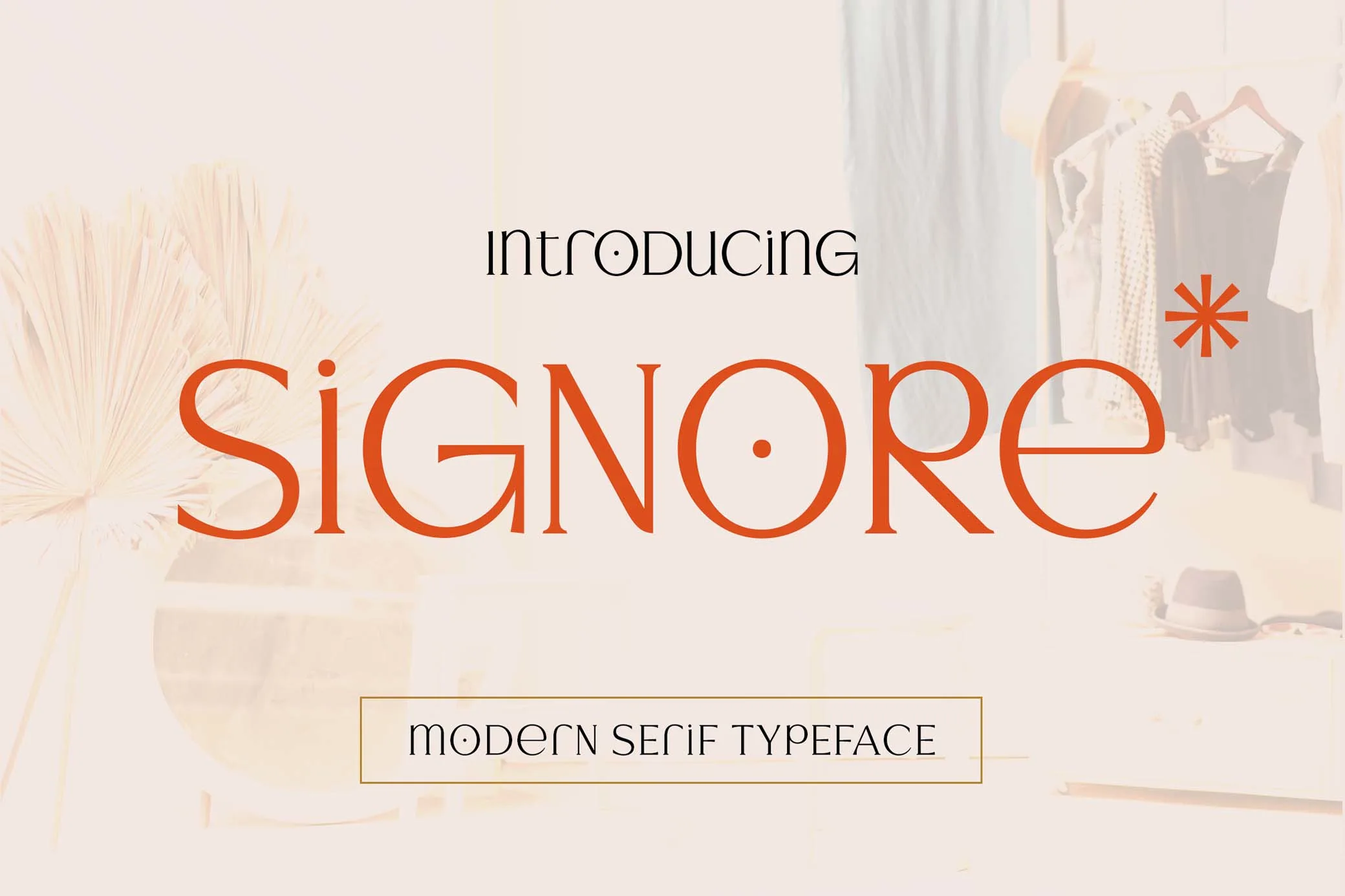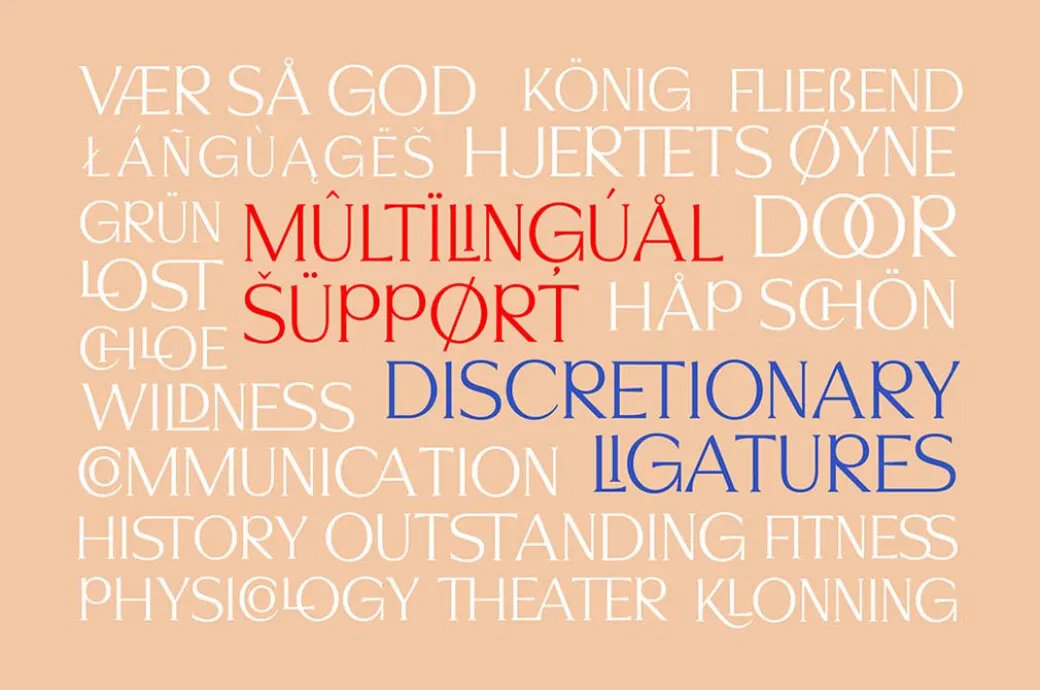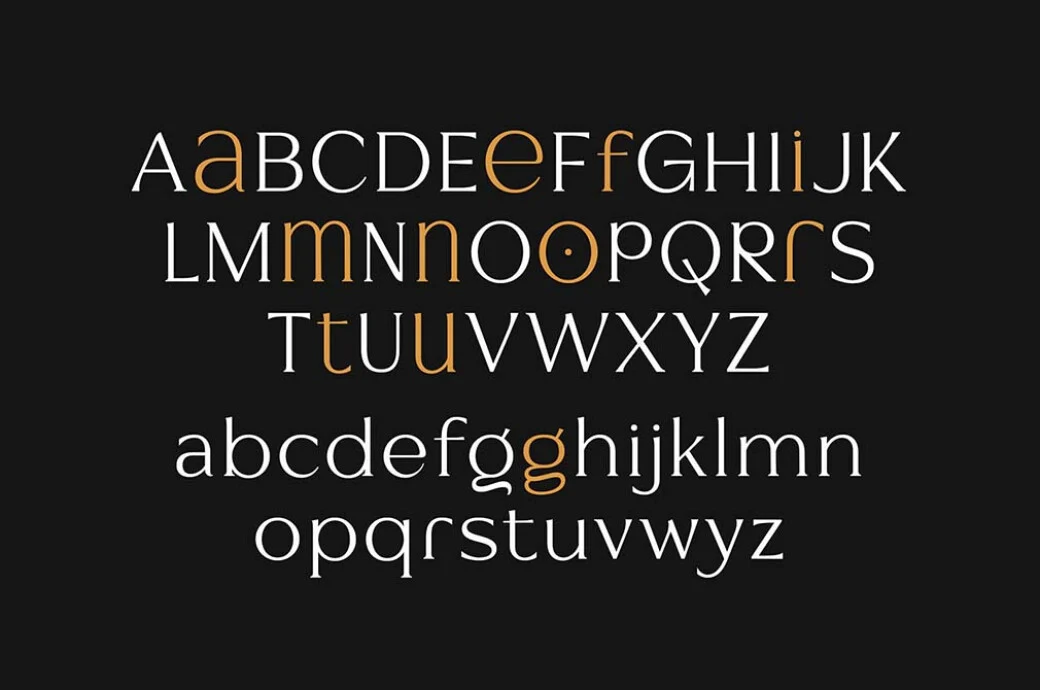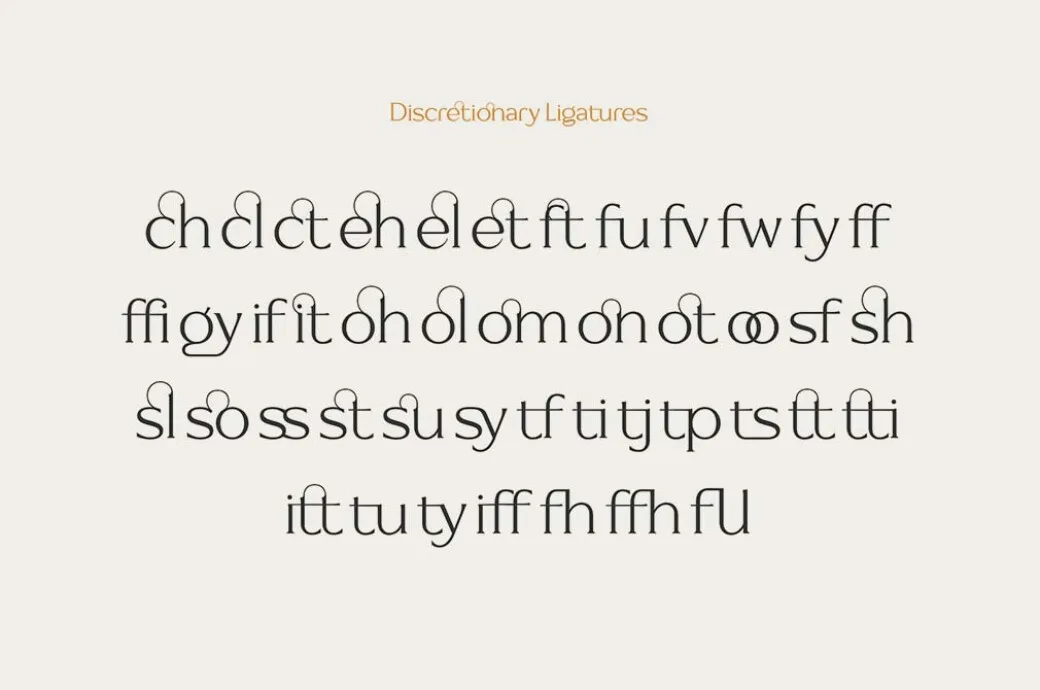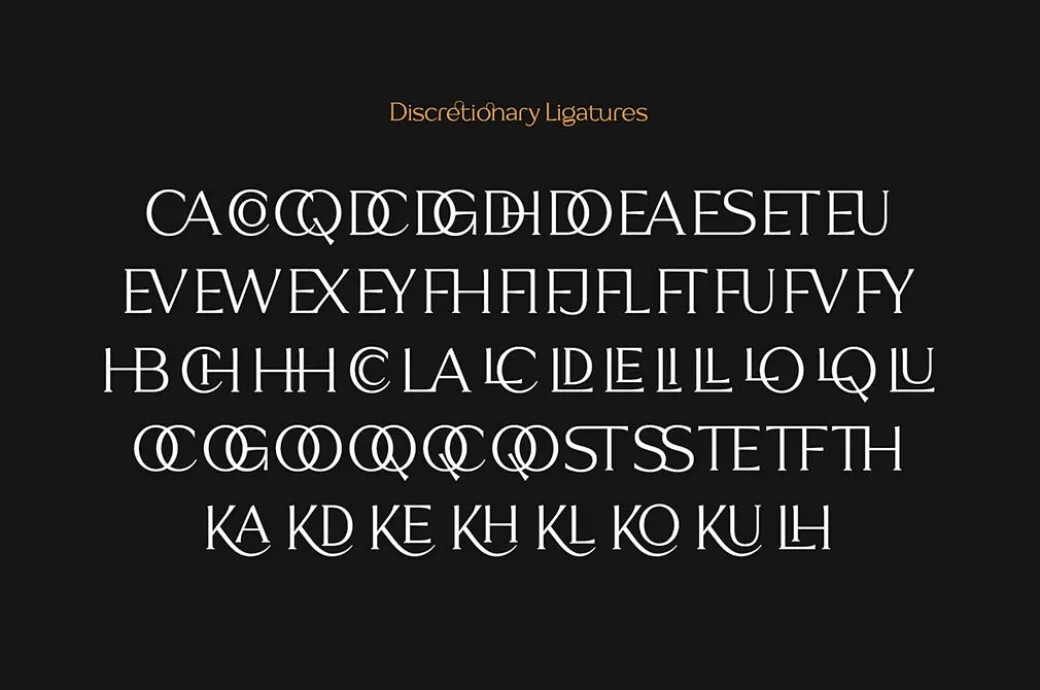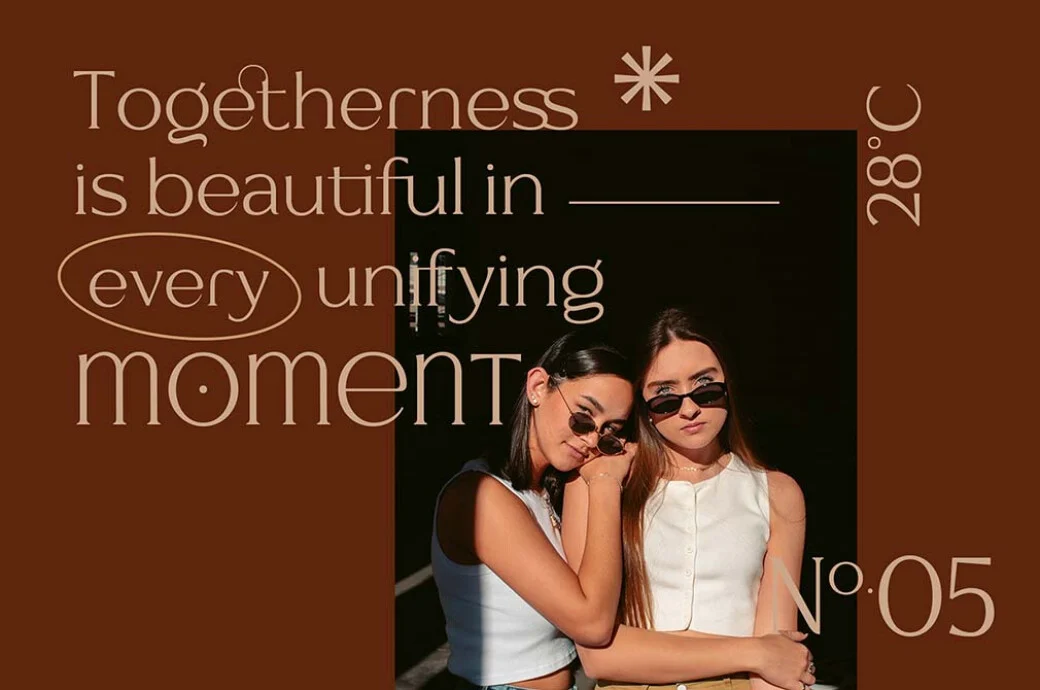
Transform your typography into timeless art with the Signore Serif Typeface, a font that evokes sophistication, opulence, and modern charm all at once. Designed to look like a luxury signature carved in print, this typeface is perfect for creatives who want their words to carry both weight and beauty.
Every uppercase and lowercase character in Signore has been thoughtfully crafted to feel like a painted letter — graceful curves, elegant transitions, and stately serifs that exude refinement. It’s a font made for more than just reading — it’s designed to make your text feel like an experience.
Features That Make Signore Stand Out
Elegant Serif Style: A classic serif structure with modern proportions, ideal for editorial, branding, or upscale packaging projects.
Stylistic Alternates & Ligatures: Add flair and personalization with a collection of discretionary ligatures and alternate glyphs.
Multilingual Support: Includes accented characters to support 380+ Latin-based languages, so your message travels as far as your audience.
High Legibility: Balanced contrast and spacing make it suitable for both headlines and body text.
Ideal For:
Luxury Branding: Perfect for high-end fashion labels, boutique skincare brands, or premium product lines.
Wedding & Event Design: Create elegant invitations, menus, or signage that leaves a lasting impression.
Editorial Layouts: Whether you’re working on a magazine spread or a digital blog, Signore Serif adds visual gravitas.
Logo Design: A unique typeface that can elevate any logotype with a sense of history and modern finesse.
Packaging Design: Use it on wine bottles, perfume boxes, or gourmet products to communicate sophistication.
Whether you’re working on a modern design project or something that needs a nod to timeless elegance, Signore Serif Typeface is a versatile and expressive tool for visual storytelling. Its smooth ligatures and flourished alternates make it not just a font, but a design asset that breathes personality into every project.